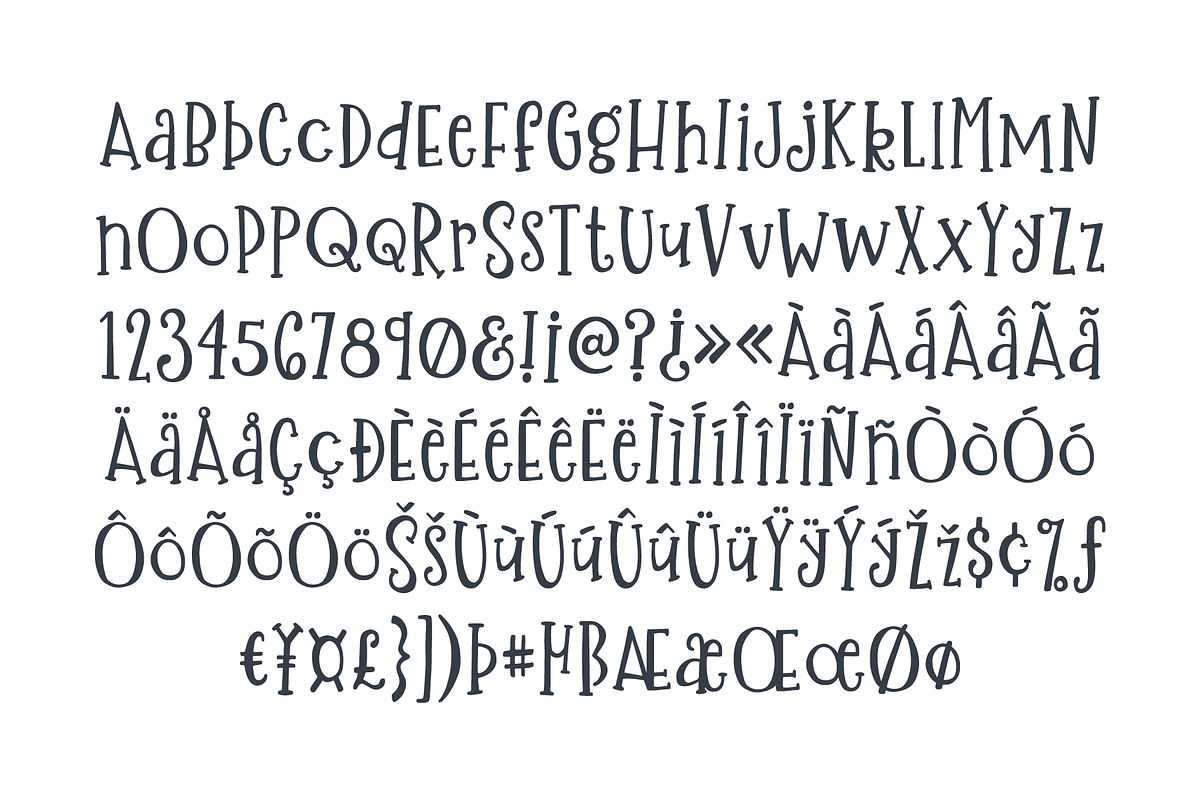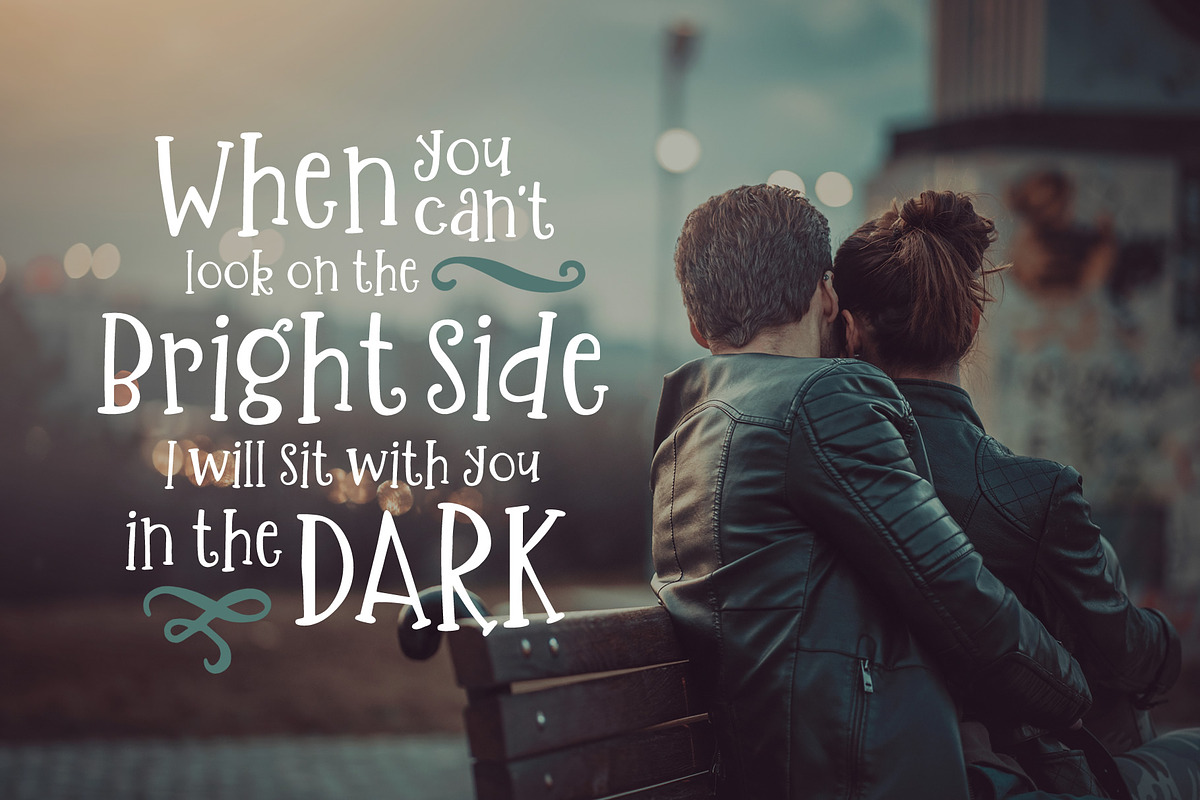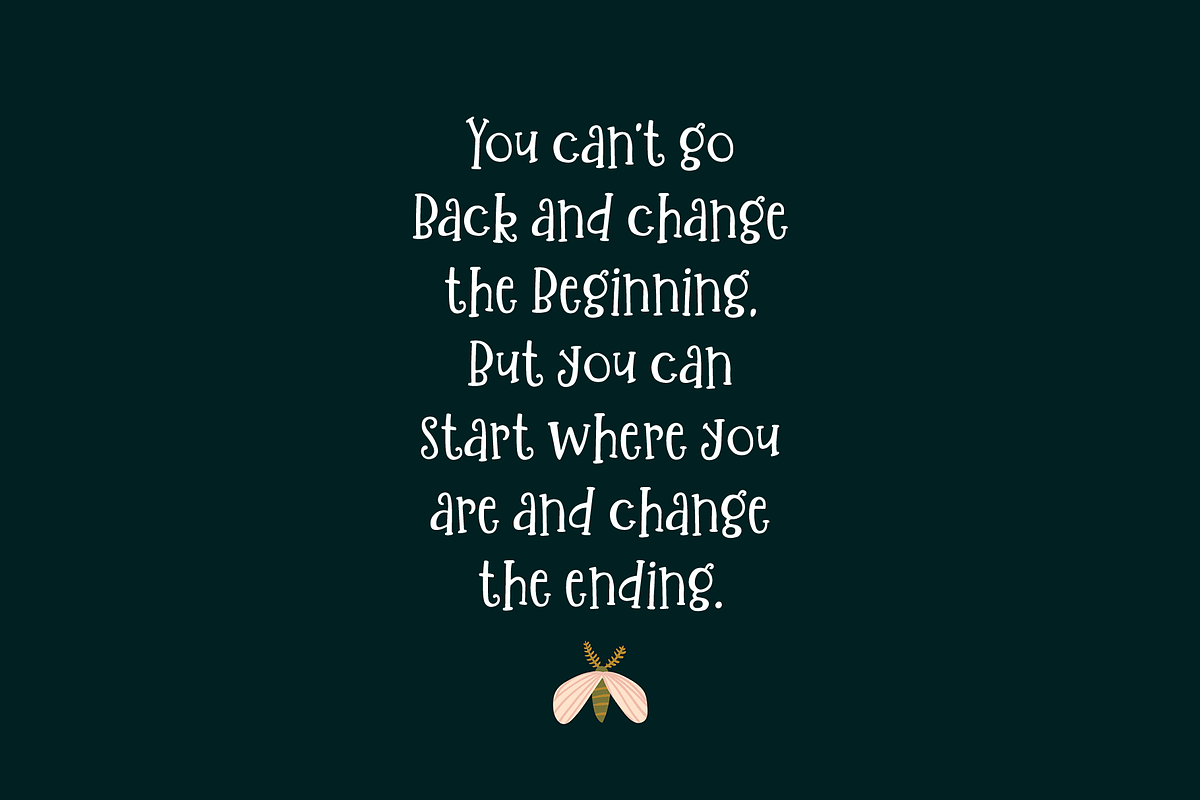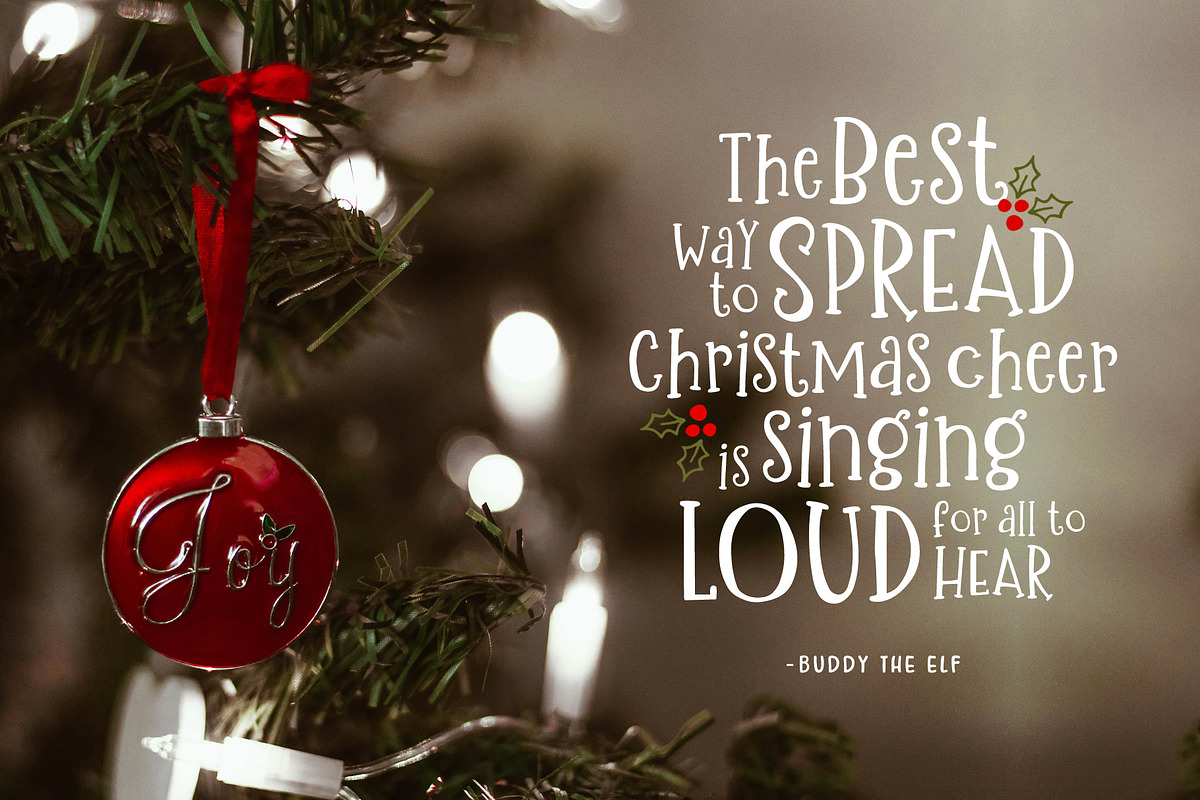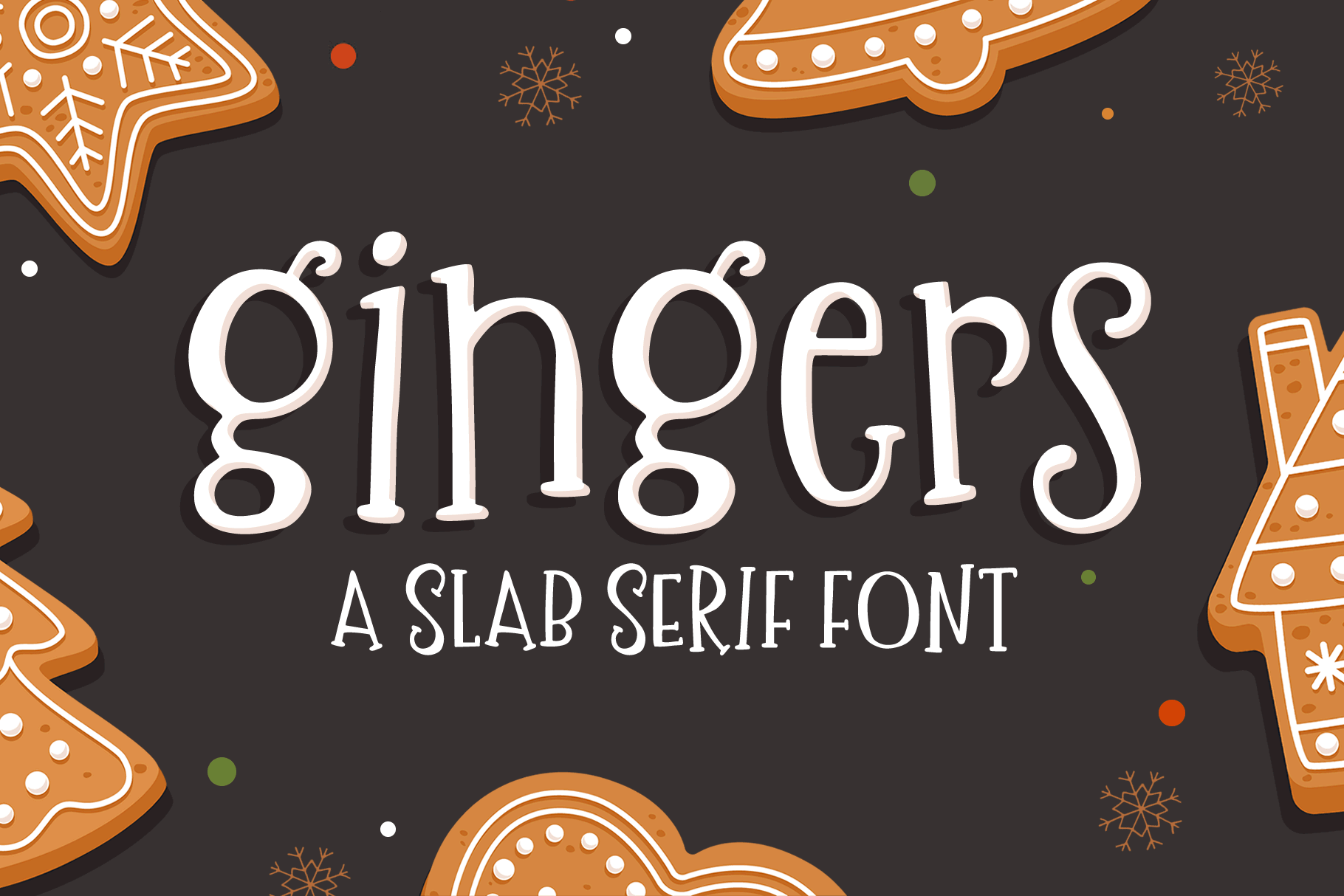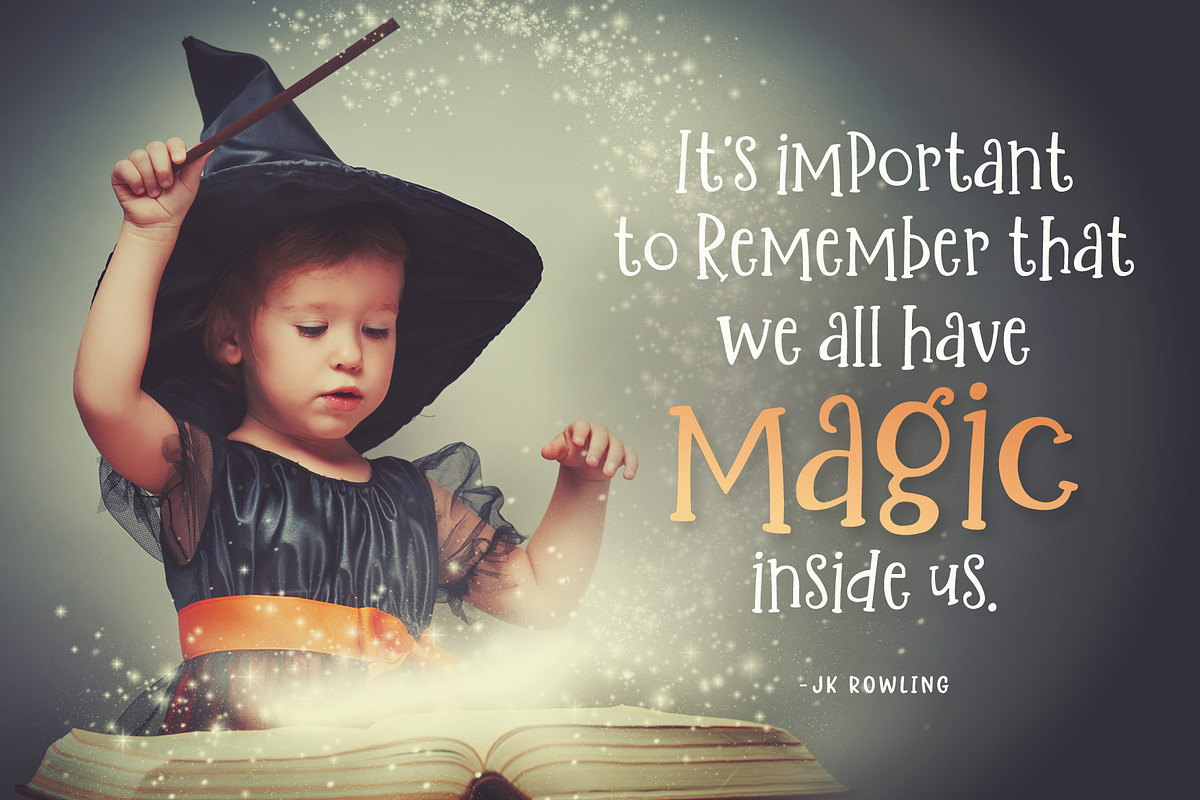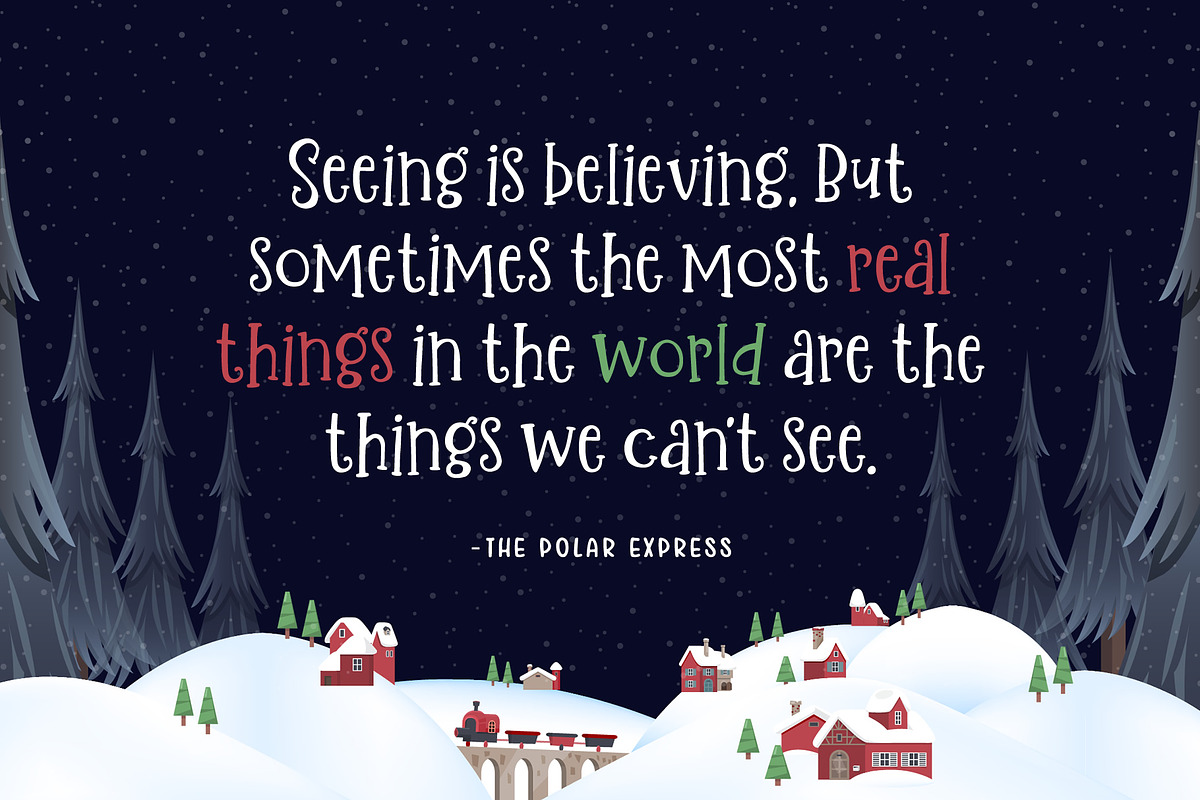
Gingers Slab Serif Font
Gingers is a sweet and curly slab serif font. It is perfect for the holiday season or any time of the year when you need to add a little whimsy and charm.